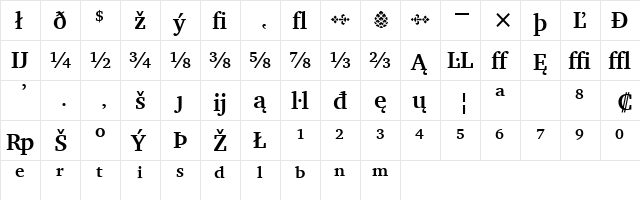
Charter BdExt BT Bold Extension Font Preview
Charter BdExt BT Bold Extension
Design Context for Charter BdExt BT Typeface
Charter BdExt BT takes a measured approach to typography — its balanced proportions and neutral character make it a reliable workhorse for both digital and print work. The heavy weight commands attention and anchors typographic hierarchies.